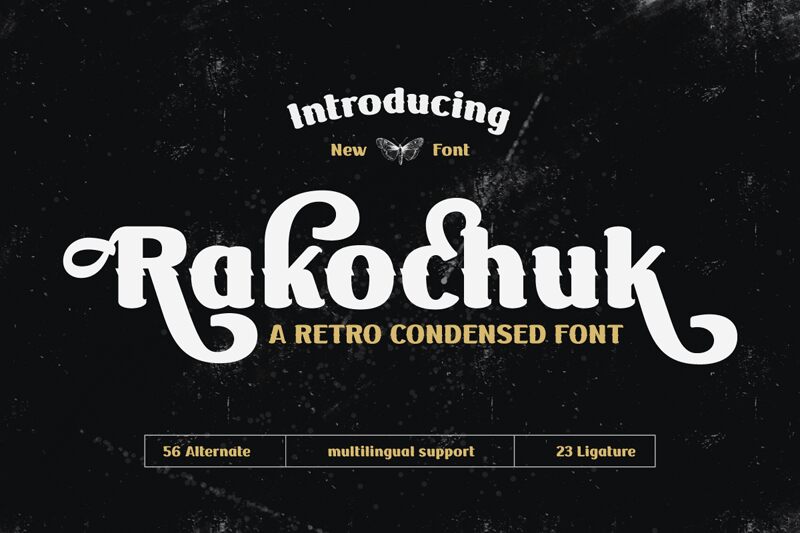
Rakochuk font family by twinletter consists of two distinct font styles that bring together a unique fusion of vintage aesthetics with a contemporary flair. This font family is characterized by a bold, retro style, ripe with expressive and intricate elements that reflect imaginative creativity. Distinctive and energetic, Rakochuk captures attention with its intriguing, whimsical character, making it ideal for statement-making projects.
Rakochuk's clear, nostalgic look is ideal for designing posters, websites, branding, album covers, logos, brochures, social media, and other digital projects. The font also makes for a strong choice in magazine or newspaper publishing, restaurant menus, or store signage and window display.